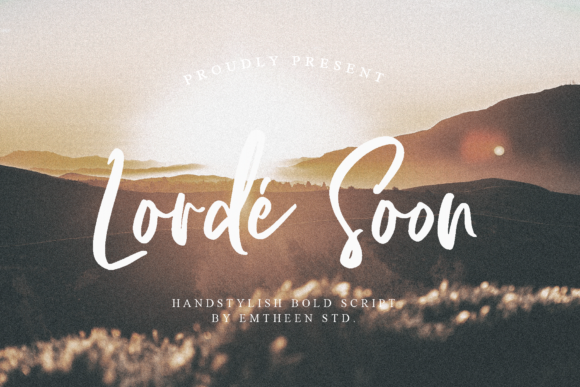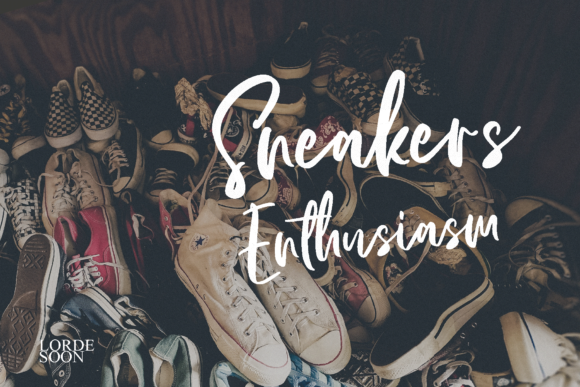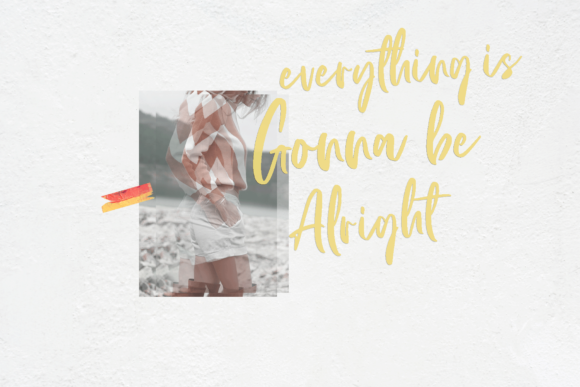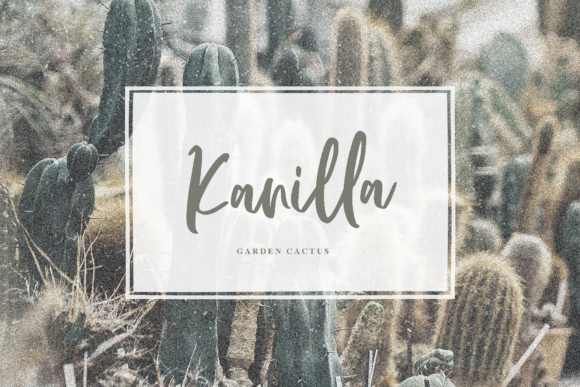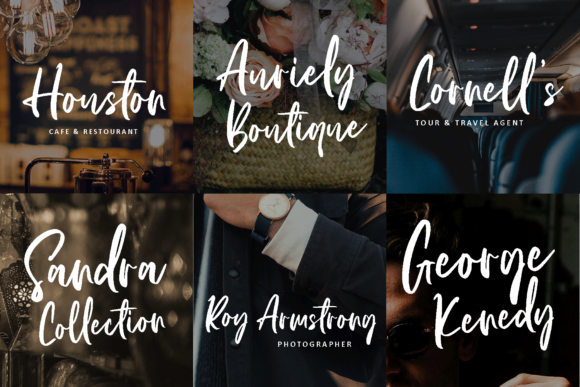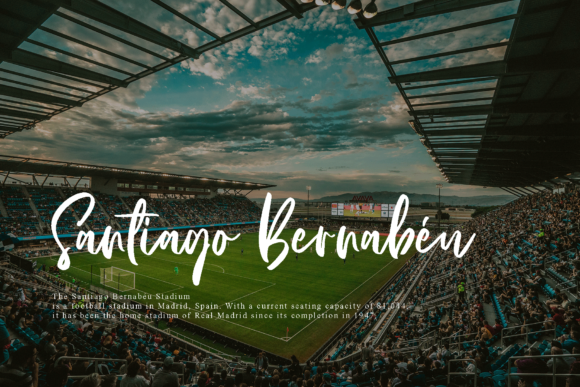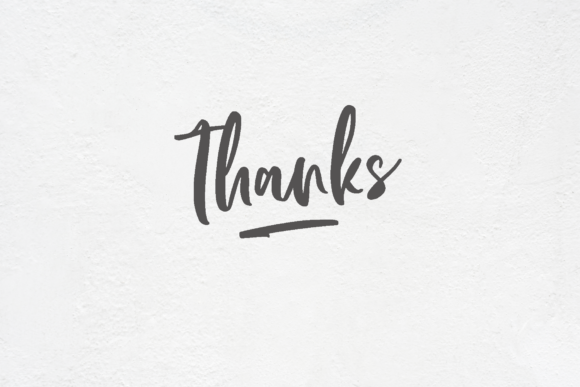
Lorde Soon Font
About Lorde Soon Font
The Lorde Soon is an elegant script font. Its great width makes it usable for all sorts of media designs.
This dashing typeface can be used for quotes, watermarks, business cards, wedding designs, everything related to advertising and more.